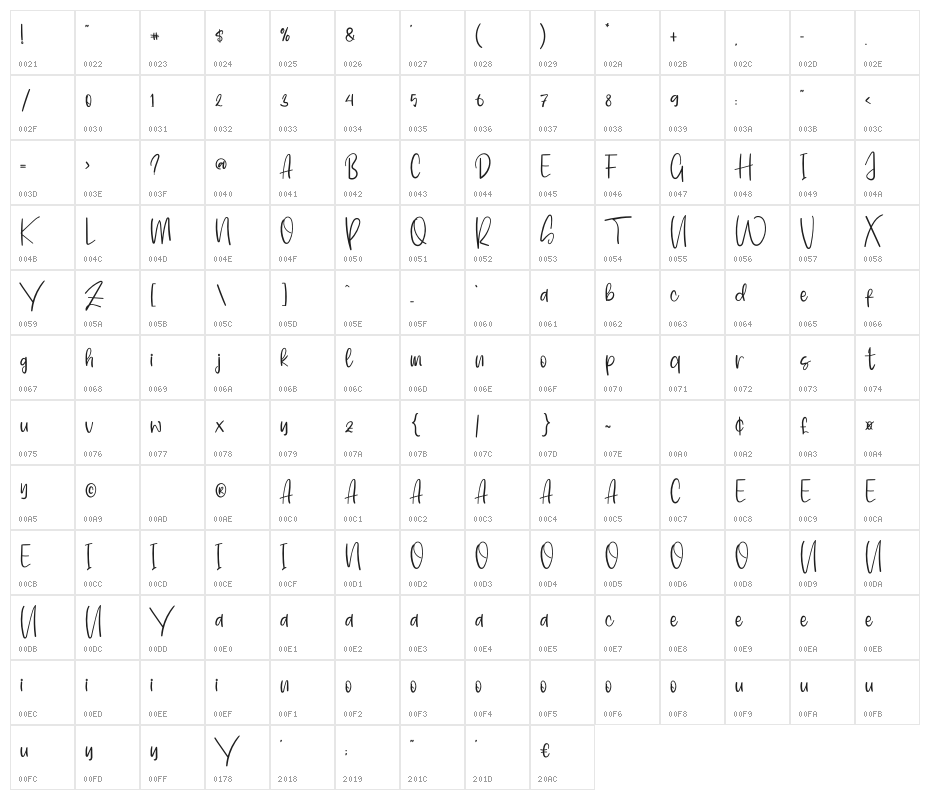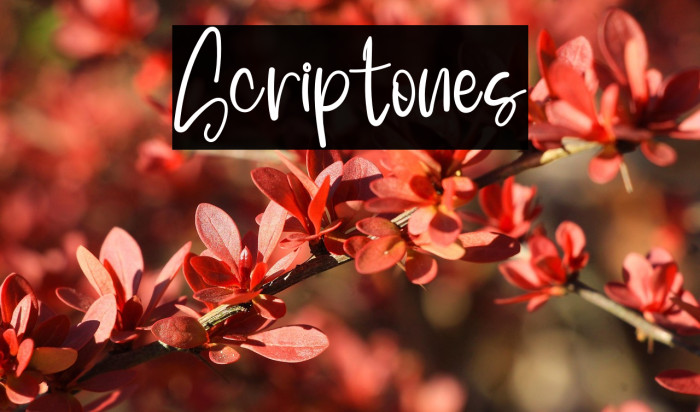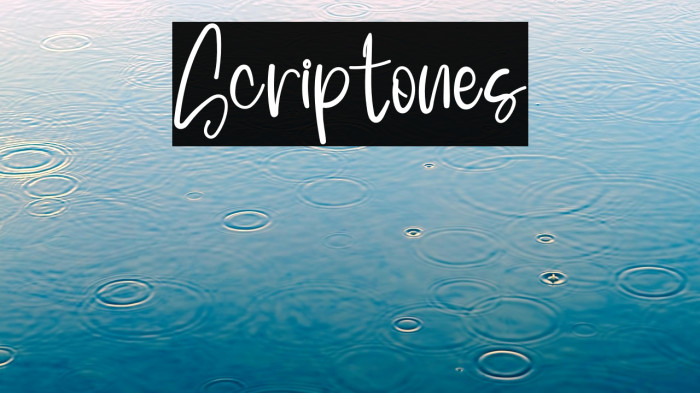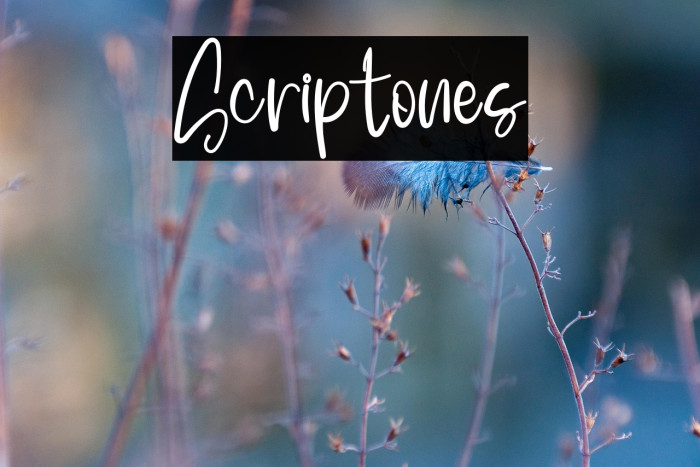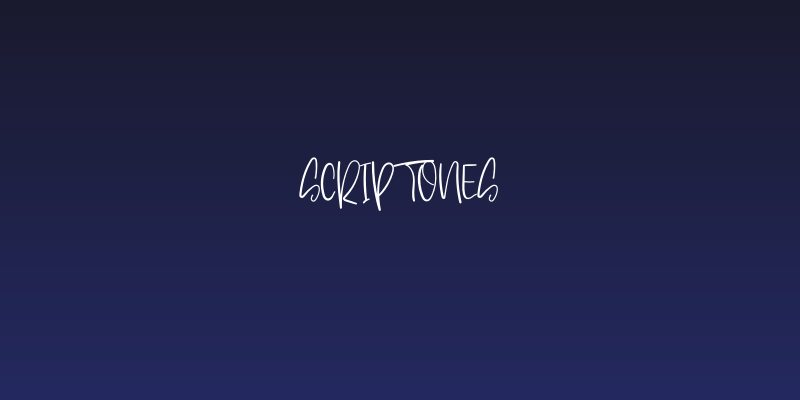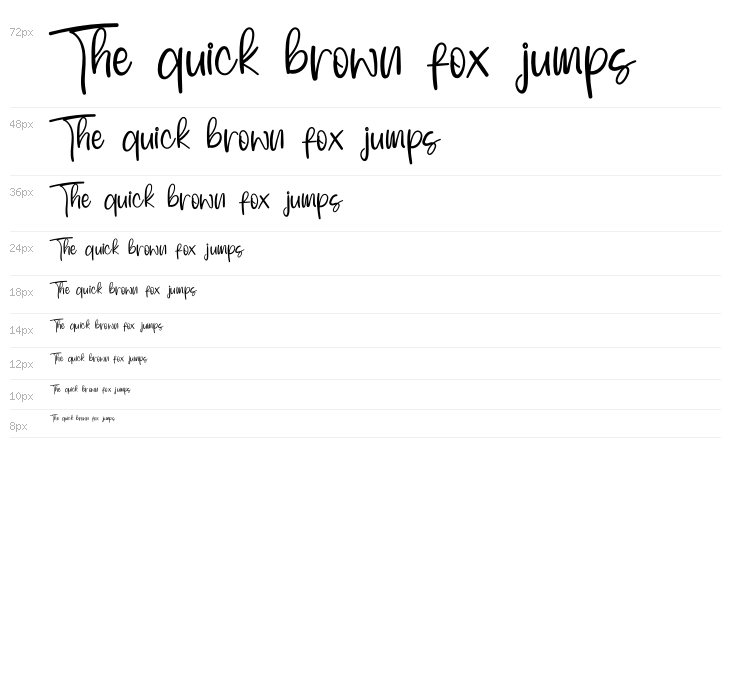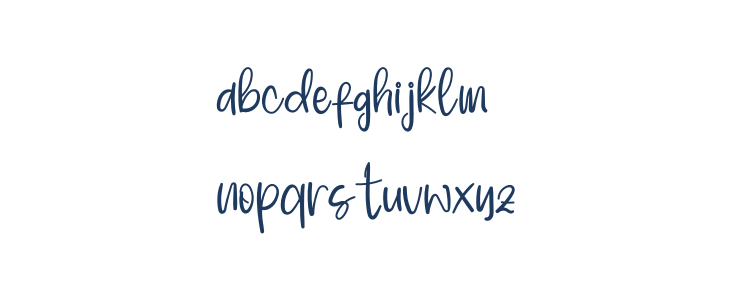
Scriptones Font
Scriptones Description
This font features a playful and casual handwritten style, characterized by its fluid and dynamic strokes. The uppercase letters are tall and slightly narrow, giving a sense of elegance and movement. The lowercase letters maintain a consistent flow, enhancing readability while retaining a personal touch. Numbers and special characters are crafted with the same attention to detail, ensuring a cohesive look across all text elements. The overall design is modern yet approachable, making it suitable for a variety of creative applications.